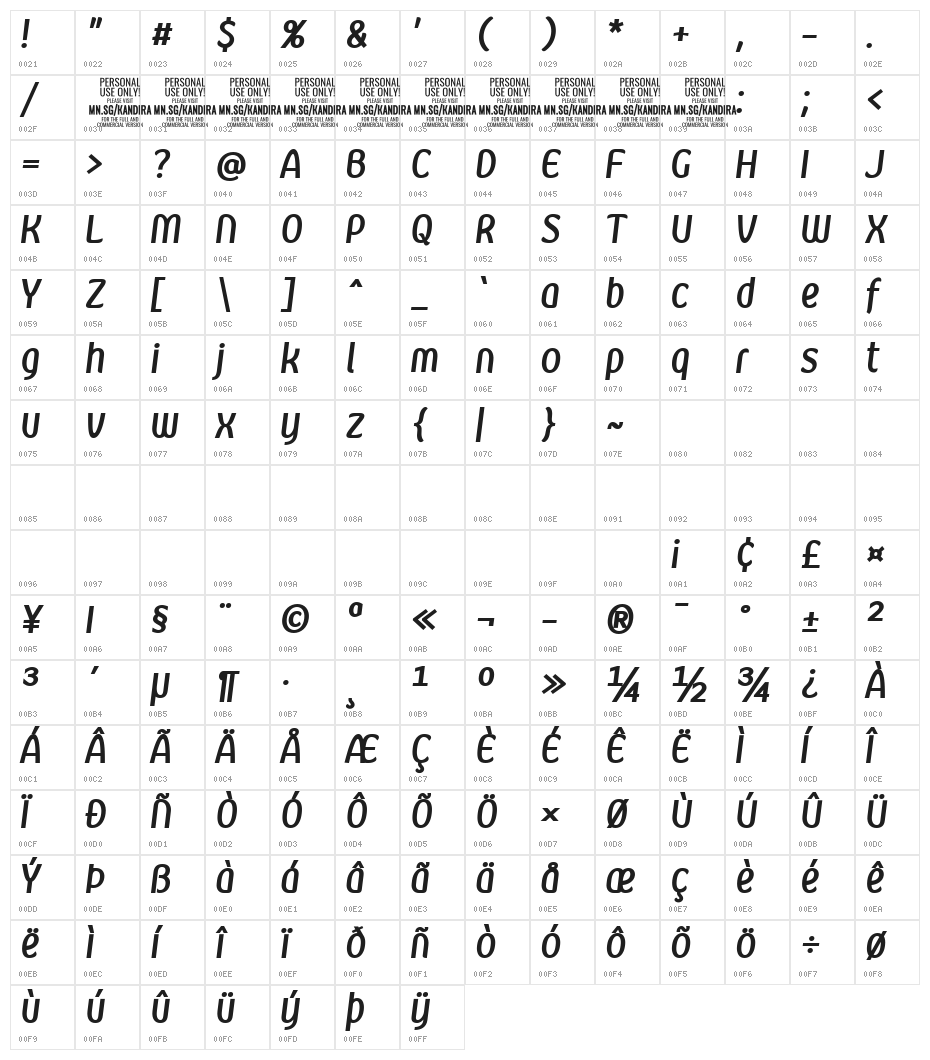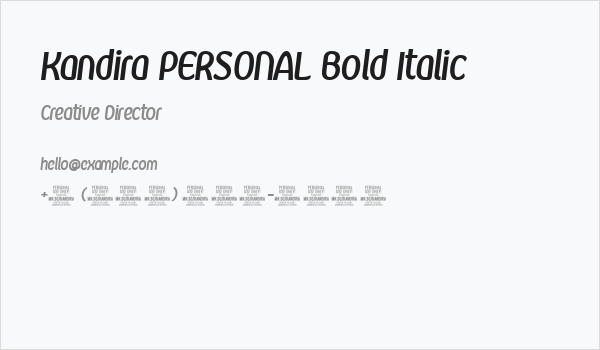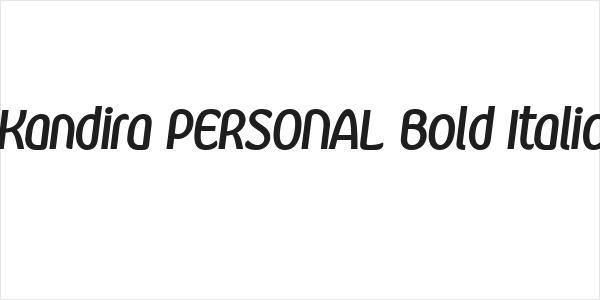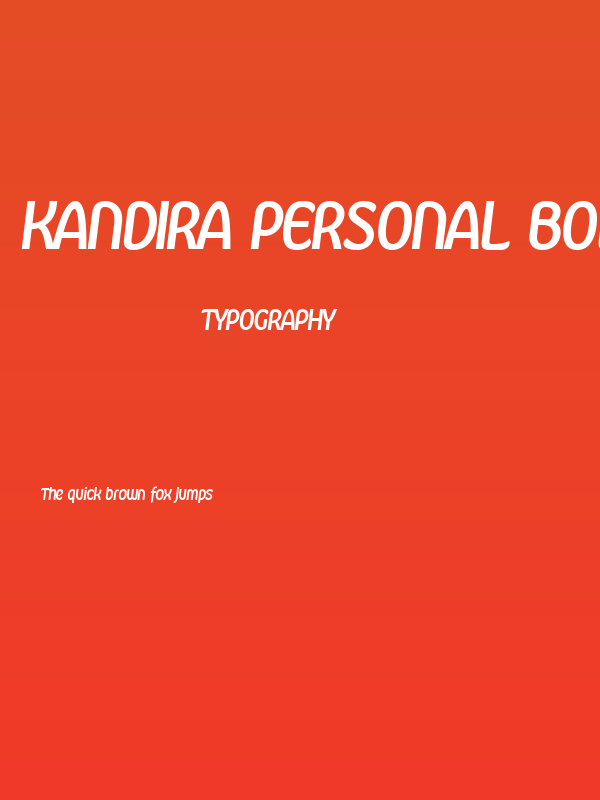
Kandira PERSONAL Bold Italic Font
Kandira PERSONAL Bold Italic Description
This font features a bold and italicized style, characterized by its smooth, rounded edges and slightly condensed letterforms. The uppercase and lowercase letters maintain a consistent flow, with a modern and sleek appearance. The numerals and special characters are designed to match the overall aesthetic, providing a cohesive look across all characters. The font's bold weight and italic slant give it a dynamic and energetic feel, making it suitable for attention-grabbing designs. Its clean lines and contemporary style make it versatile for various applications.
| Use Case | Headlines, Logos, Advertising |
| Proposed Projects | Ideal for branding, advertising, headlines, and digital media projects that require a modern and dynamic look. |